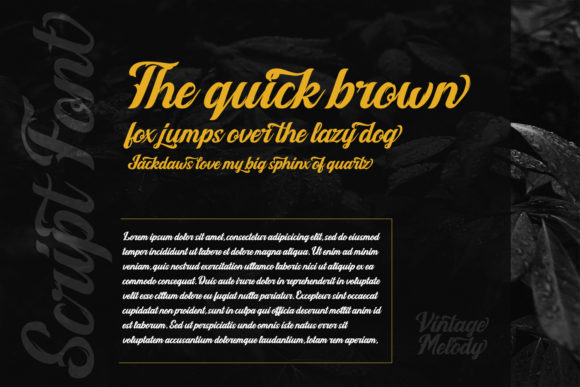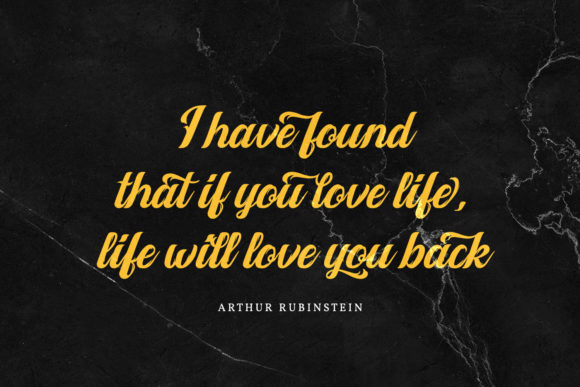
Vintage Melody Font
db-ku.com - Script & Handwritten -- Vintage Melody is an elegant handwritten font. It reads as strong, confident, and dynamic and can add tons of nostalgic character to your designs. Vintage Melody is PUA encoded which means you can access all of the glyphs and swashes with ease!